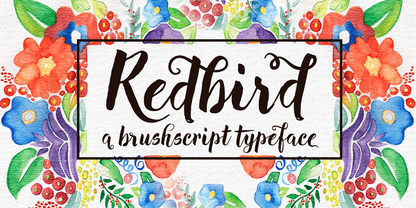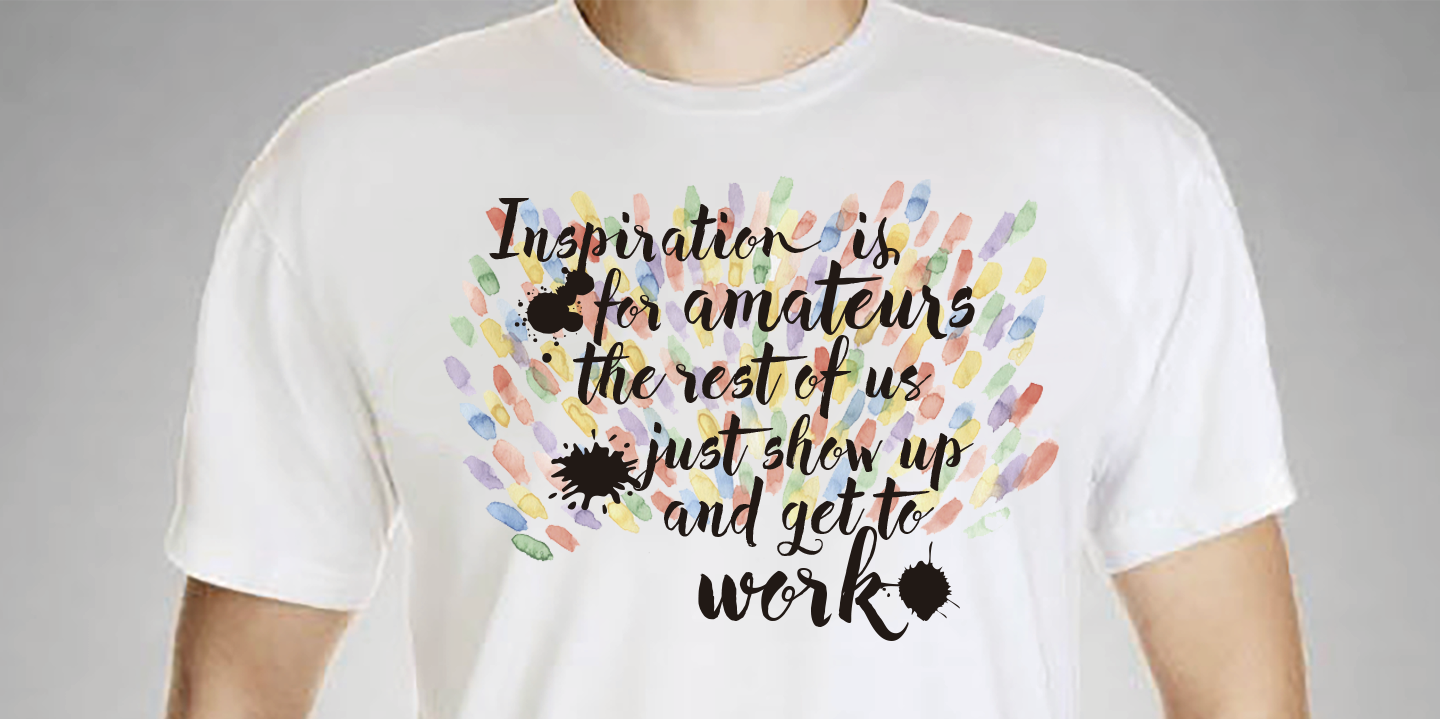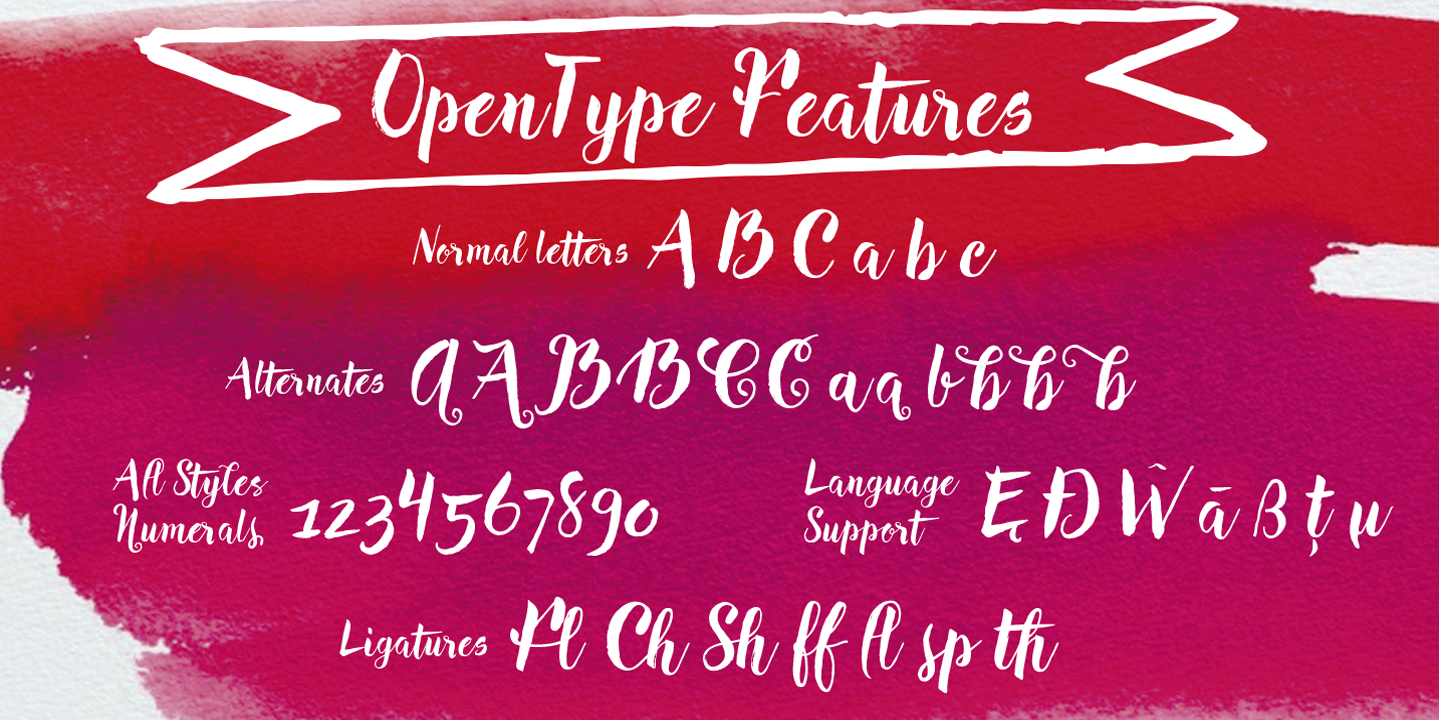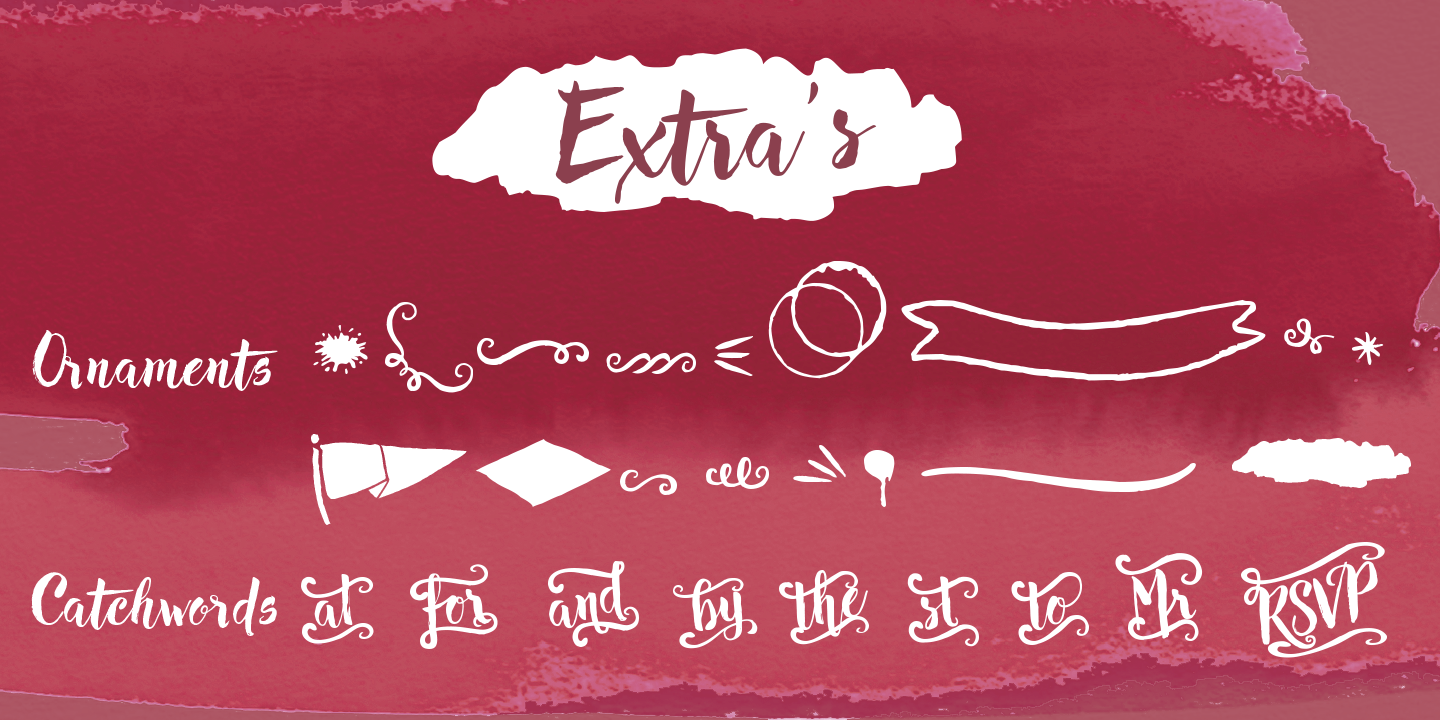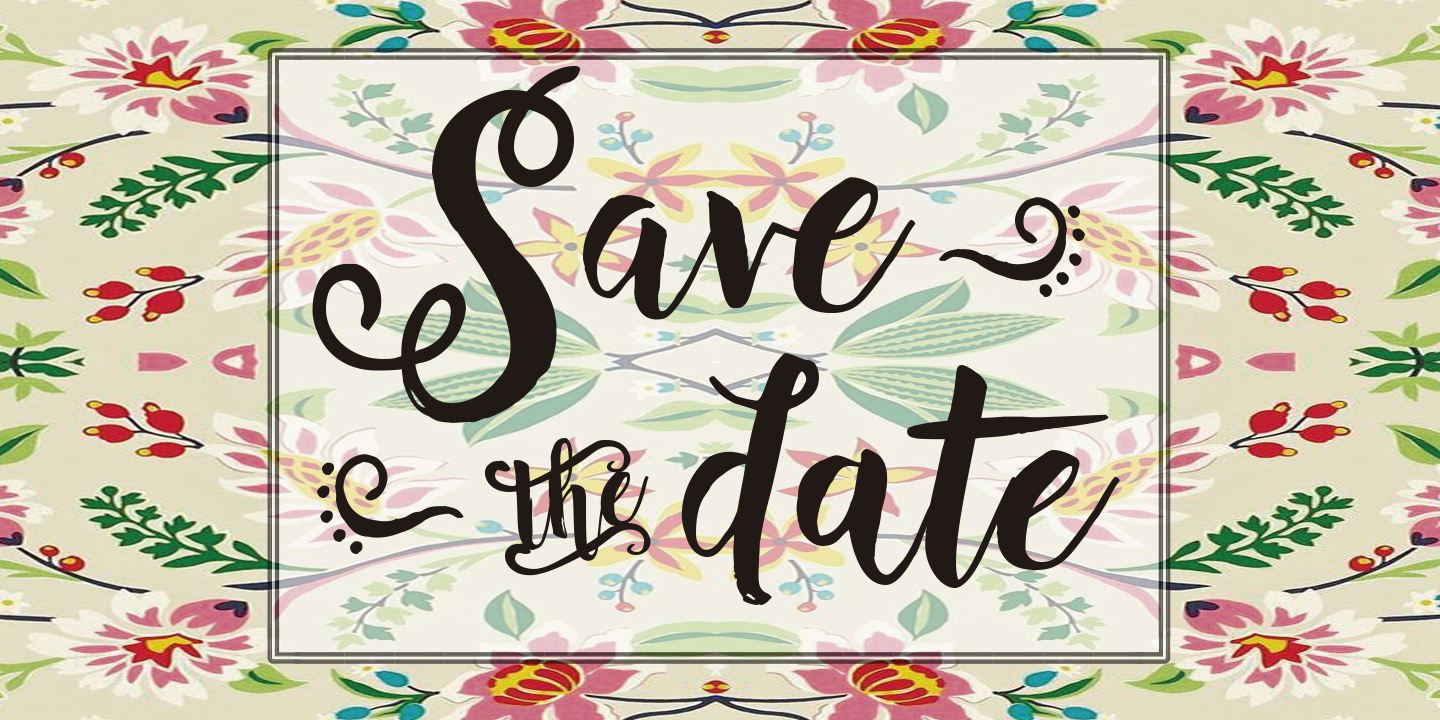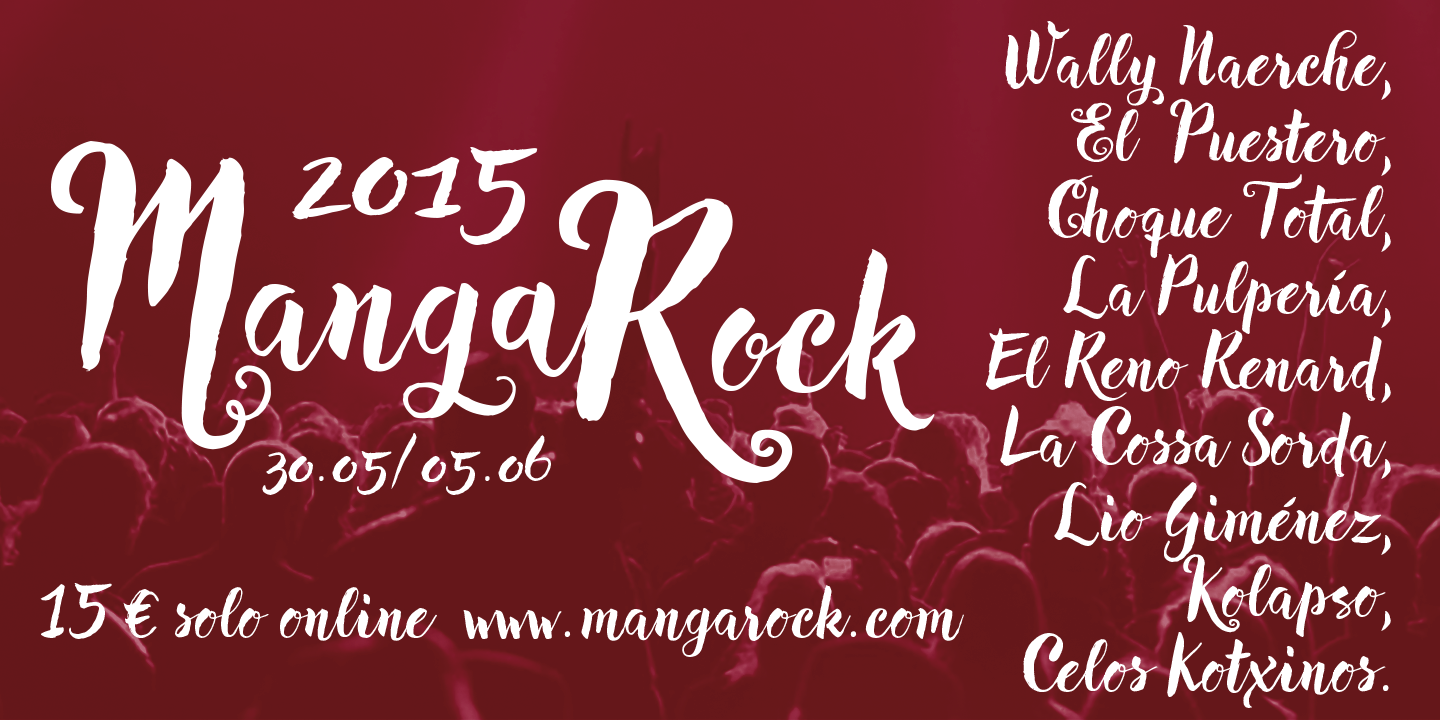
Redbird
Carine de Wandeleer
2015
A Fresh Hand-Painted Script
Redbird is a fresh, modern hand-painted script designed to bring authentic artistry to your work. Its playful irregular baseline, textured strokes, and beautifully imperfect edges create a bold, trendy look that feels effortlessly handcrafted. Every glyph is meticulously painted to deliver smooth, natural rhythm—balancing thick and thin strokes with stunning harmony.
Organic Texture & 584 Glyphs
Looking to add a truly organic, brushed-by-hand vibe to your designs? Redbird comes packed with 584 expressive glyphs featuring inky contours and perfectly imperfect edges, plus a selection of alternate characters, swashes, and ligatures for an unmistakably hand-lettered finish.
Bonus Ornaments & Catchwords
With full OpenType features and Central European language support, this font is as versatile as it is gorgeous. Bonus: You’ll also get 60 functional ornaments and a generous collection of catchwords—ideal for elevating even your most demanding design projects.
Perfect for Weddings & Packaging
Redbird shines on wedding invitations, greeting cards, logos, business cards, fashion layouts, watercolor creations, food packaging, menus, book covers, and so much more. Wherever you want warmth, artistry, and personality—Redbird delivers.